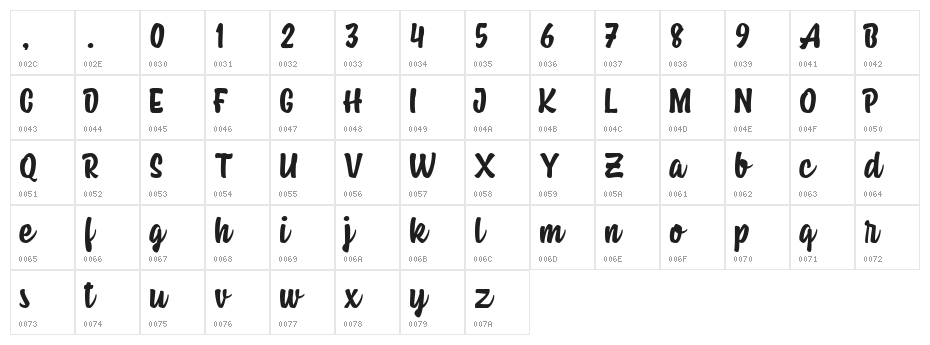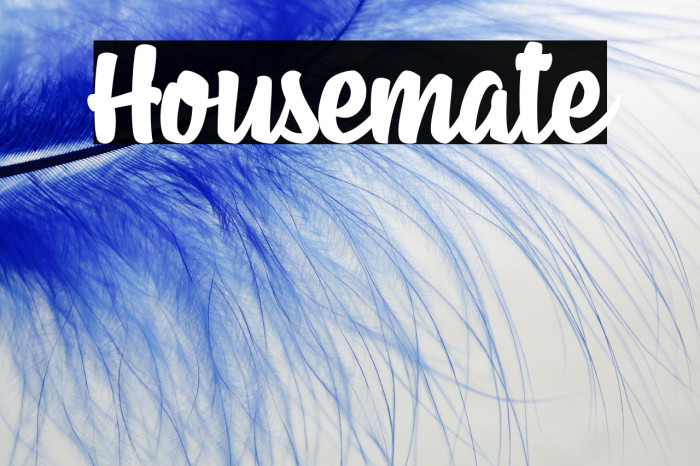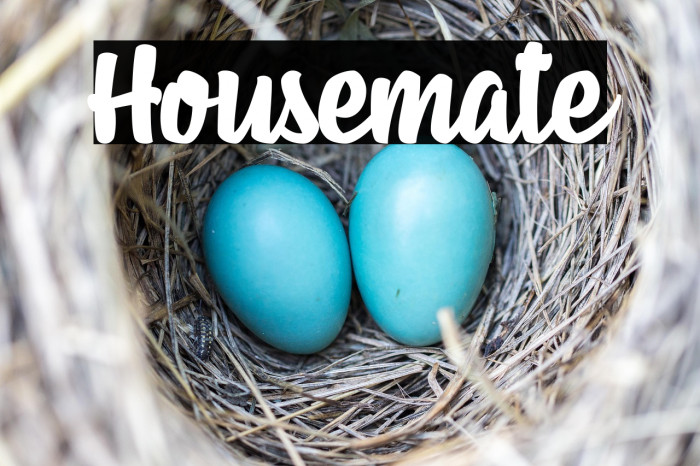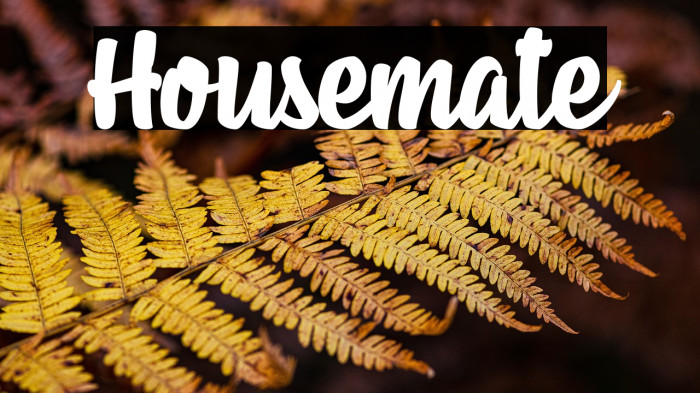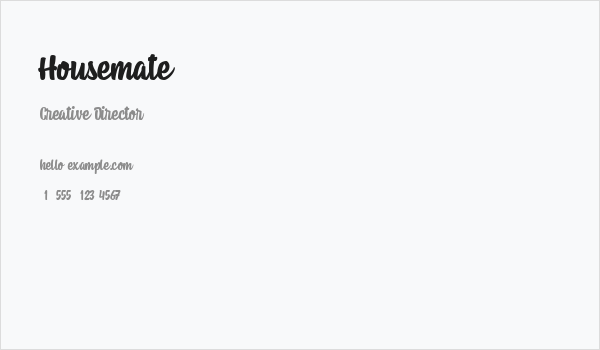
Housemate Font
Housemate Description
This font features a bold and expressive handwritten style, characterized by its thick, flowing strokes and playful curves. The uppercase letters are robust and dynamic, with a slight slant that adds a sense of movement. Lowercase letters maintain a consistent style, offering a harmonious blend of casual elegance and readability. The numbers are equally bold, ensuring they stand out clearly. Special characters are crafted with the same attention to detail, making them seamlessly integrate with the rest of the typeface. This font exudes a friendly and approachable vibe, perfect for projects that require a personal touch.
| Use Case | Logos, Headlines, Invitations |
| Proposed Projects | Ideal for greeting cards, invitations, branding, and social media graphics. |